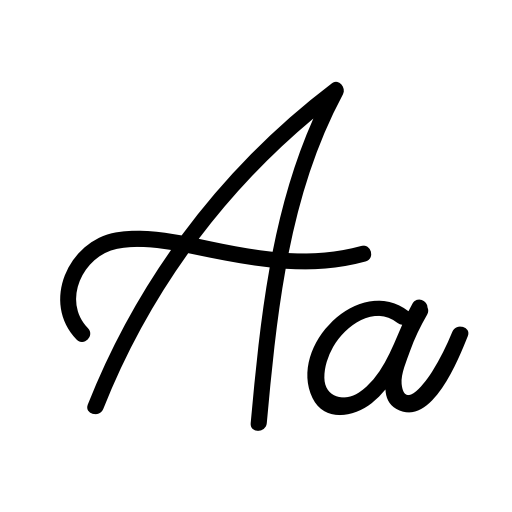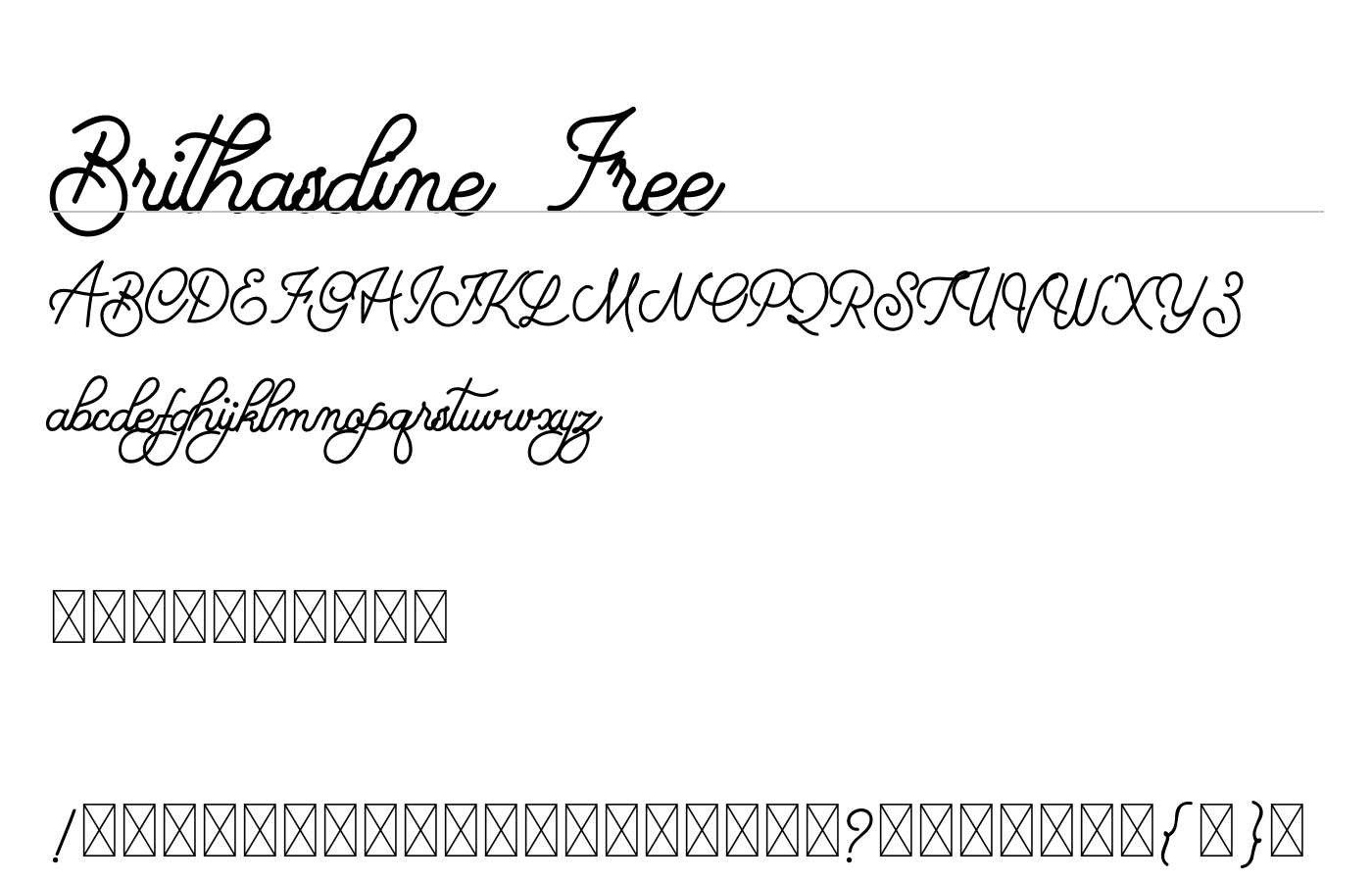
Brithasdine Free is a delicate, cursive script font that exudes elegance and charm with its smooth, flowing lines and graceful loops. Its light weight and airy letterforms make it ideal for invitations, branding, and feminine design projects where a sophisticated and personal touch is needed. This font is perfect for headlines and decorative text, adding a refined, handwritten feel to any creative work.
Brithasdine Free Font
About Brithasdine Free Font
| Font family | Brithasdine Free Font |
| Designer | Ana Natlia |